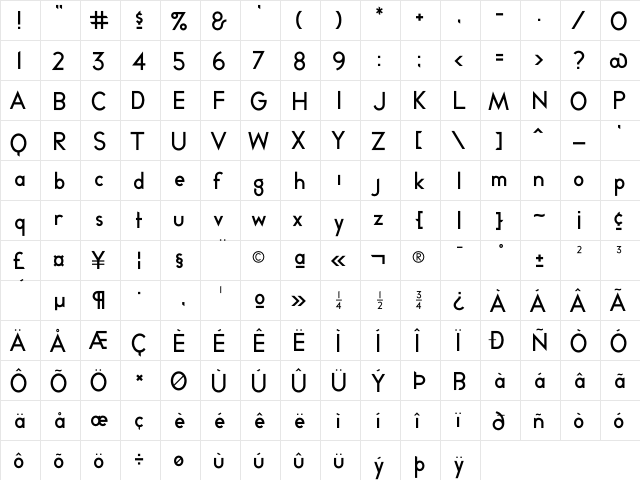
Melvinsans Regular
Design Context for Melvinsans Typeface
Melvinsans takes a measured approach to typography — its balanced proportions and neutral character make it a reliable workhorse for both digital and print work.